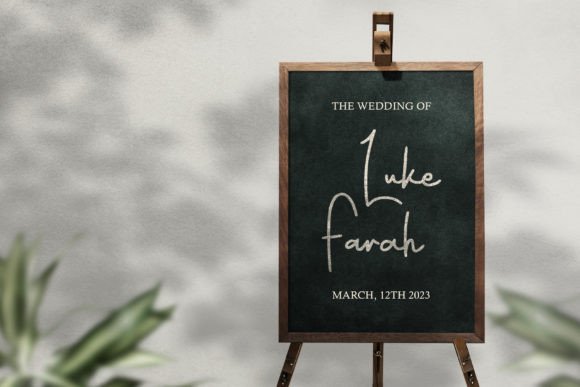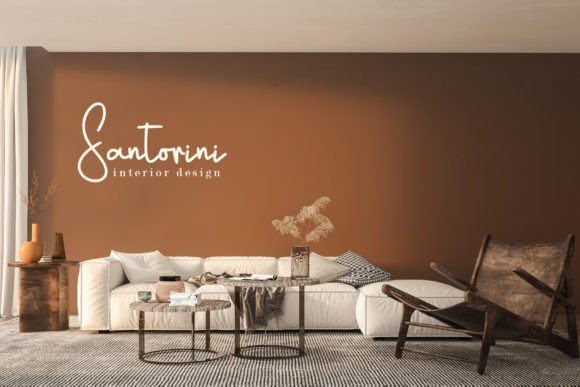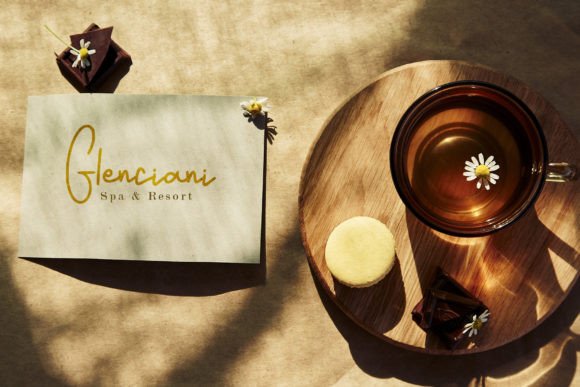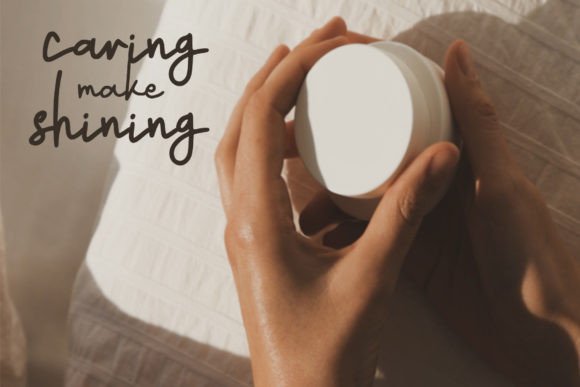
Add Natural Elegance with Akastar Font
The Akastar font is a gorgeous handwritten script that captivates with its natural and elegant style. Designed to enhance your most creative ideas, this font transforms your projects into authentic works of art. Whether you’re crafting branding materials, invitations, social media graphics, or other creative designs, Akastar adds a refined and graceful touch.
Perfect for Creative Projects and Authentic Designs
The Akastar font is ideal for a variety of design applications including logos, wedding invitations, greeting cards, product packaging, and editorial layouts. Its flowing letterforms and stylish strokes give your work an artistic and polished appearance.
A Handwritten Script with Graceful Flow
Each character in the Akastar font is carefully crafted to deliver smooth, natural strokes that combine beauty with readability. The font balances decorative elegance with clarity, making it suitable for headlines, logos, and detailed text.
Despite its decorative style, the Akastar font maintains excellent readability across various sizes. Whether used for large headings or smaller text elements, it offers the perfect balance of elegance and clarity, making it a versatile choice for many creative projects.
Make Your Designs Shine with Authentic Beauty